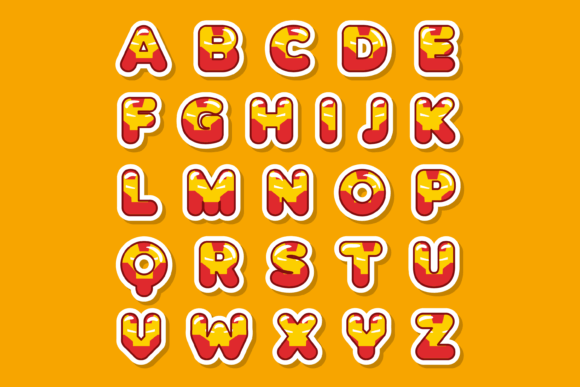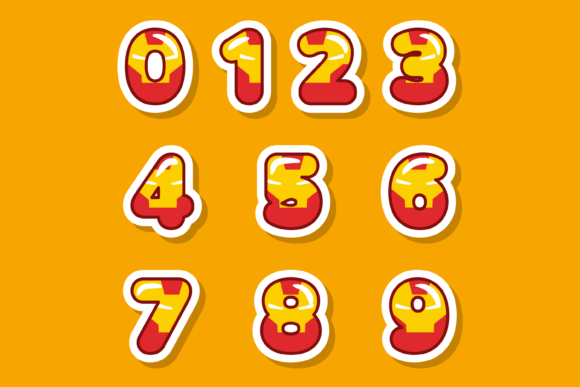
Armor Font
About Armor Font
Armor is indeed an incredibly cool color font that can add a touch of uniqueness to your custom designs, DIY crafts, or any creative project. With its distinctive style and vibrant colors, Armor font can make your creations stand out and create a visually appealing impact.
Color fonts like Armor allow you to incorporate multiple colors and intricate details within each letter, providing a wide range of creative possibilities. Whether you’re designing posters, invitations, digital artwork, or any other visual content, this font can help you achieve a captivating and eye-catching result.
When working with Armor font, consider exploring different color combinations and layering options to maximize its visual impact. You can also experiment with various design elements and effects to complement the font and create a cohesive and visually stunning composition.
Remember to always consider the context and purpose of your design to ensure that Armor font aligns well with the overall aesthetic and message you want to convey.